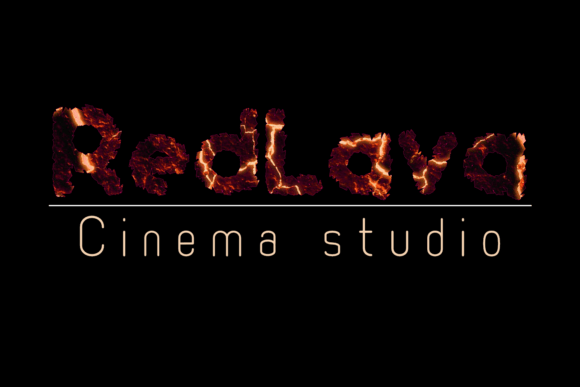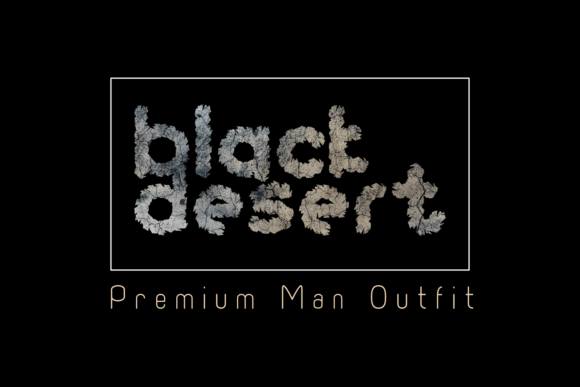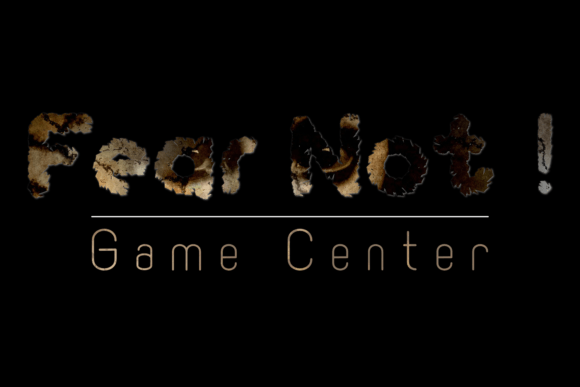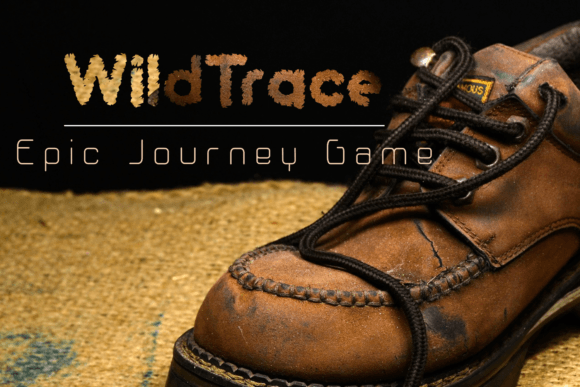
Introduction to Murisa Paula Font
Do you want a unique and attractive display font.
Murisa Paula is the answer It has a unique shape with the edges of the letters torn to shreds, like torn paper.
Key Features of Murisa Paula Font
Why Choose Murisa Paula Font?